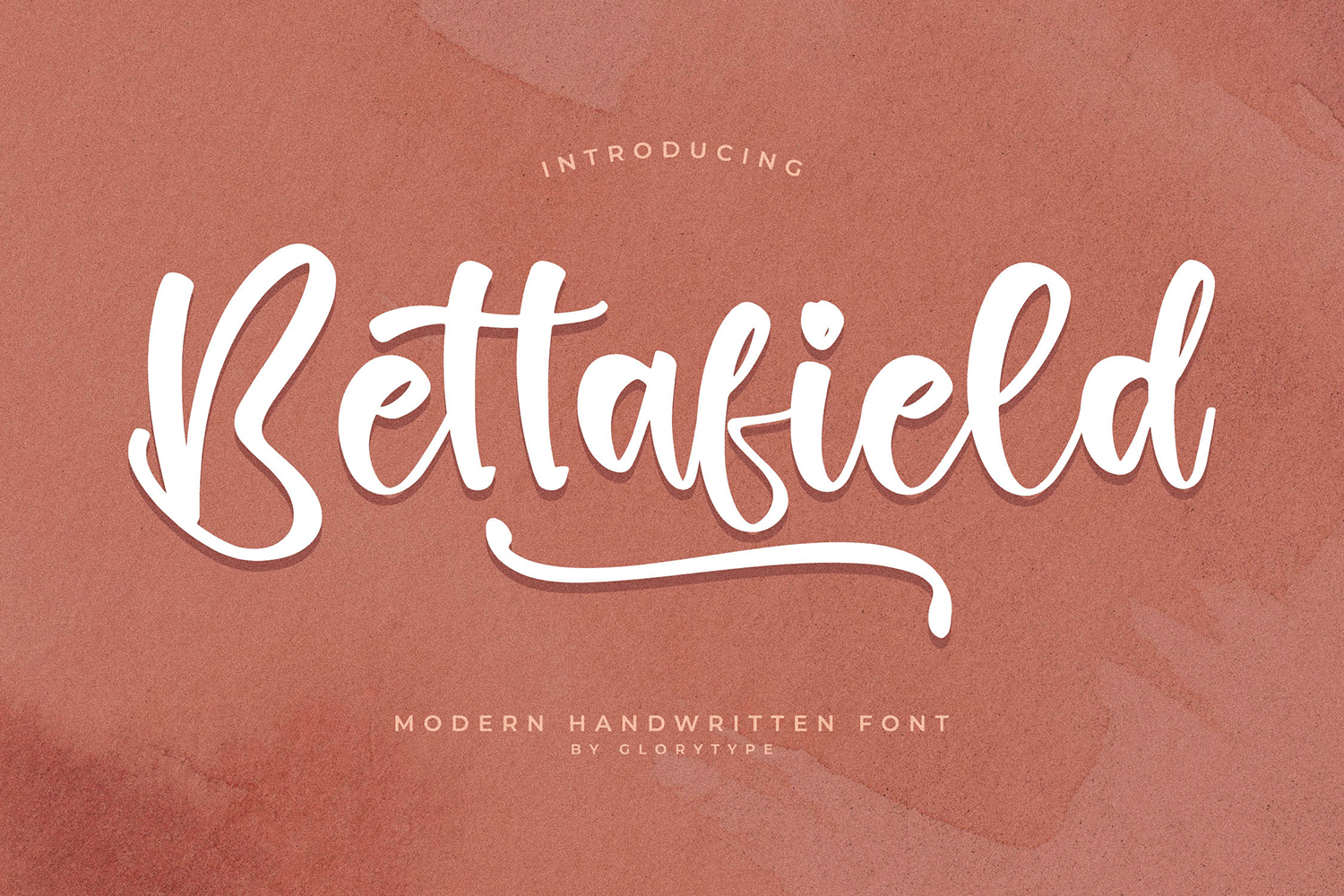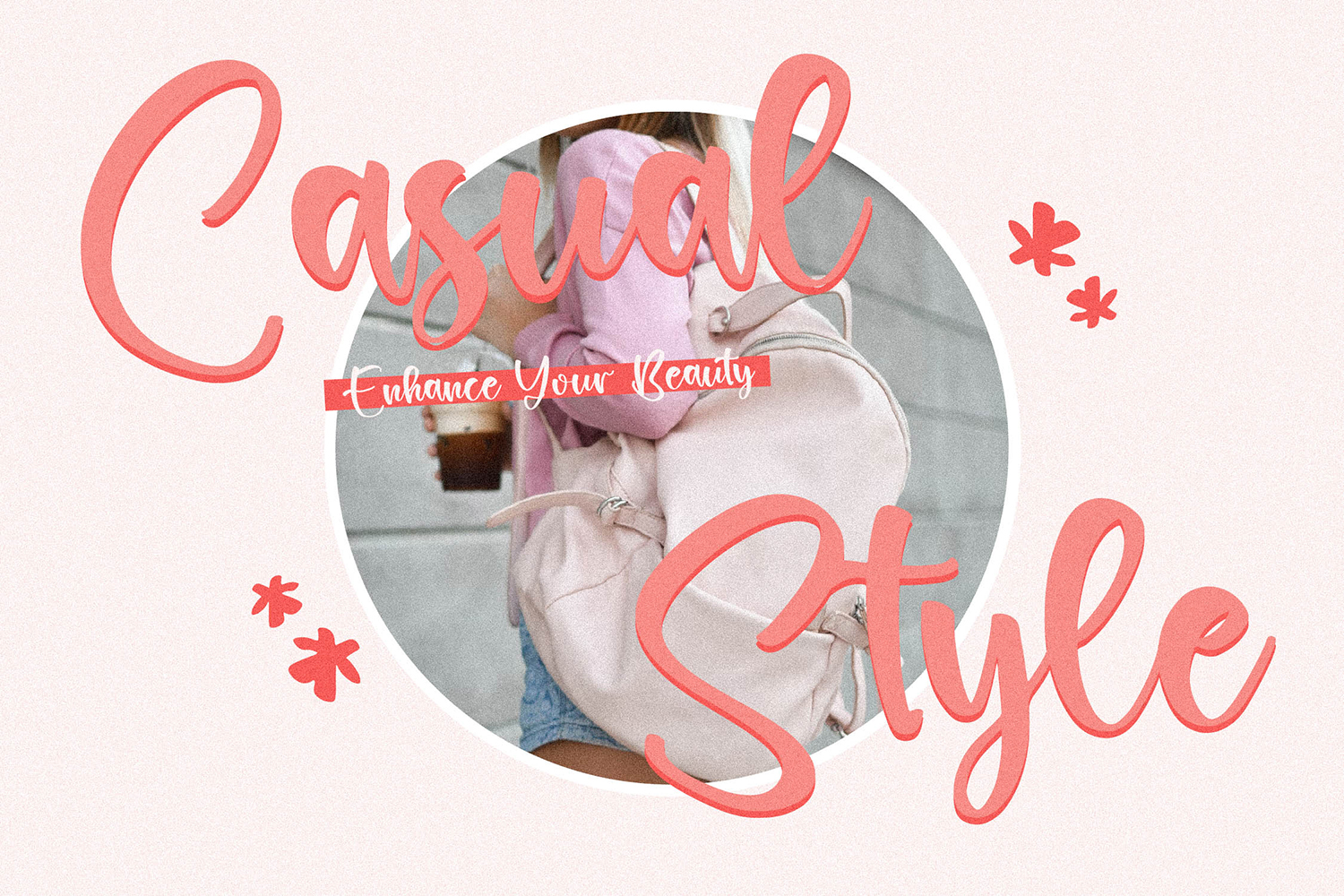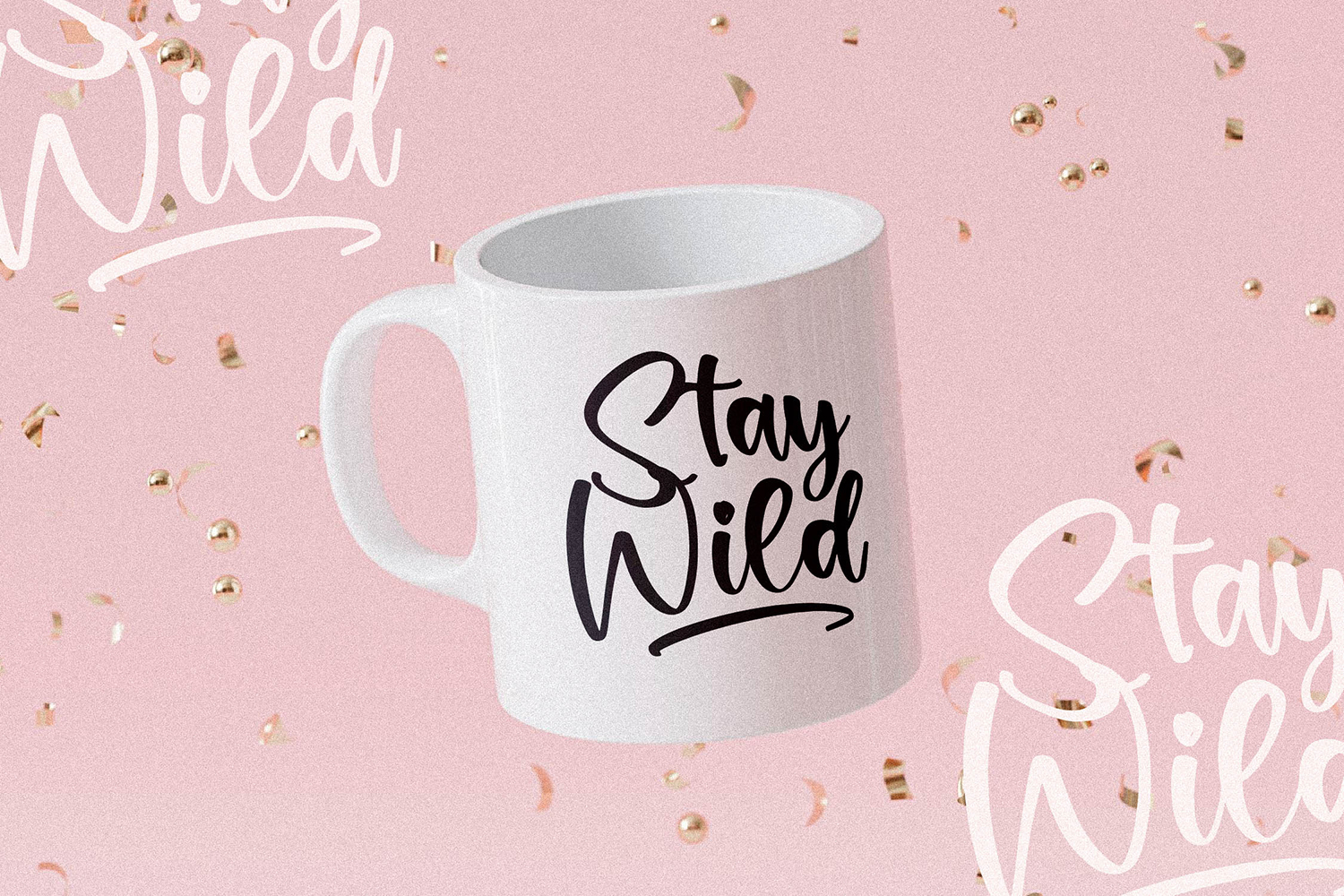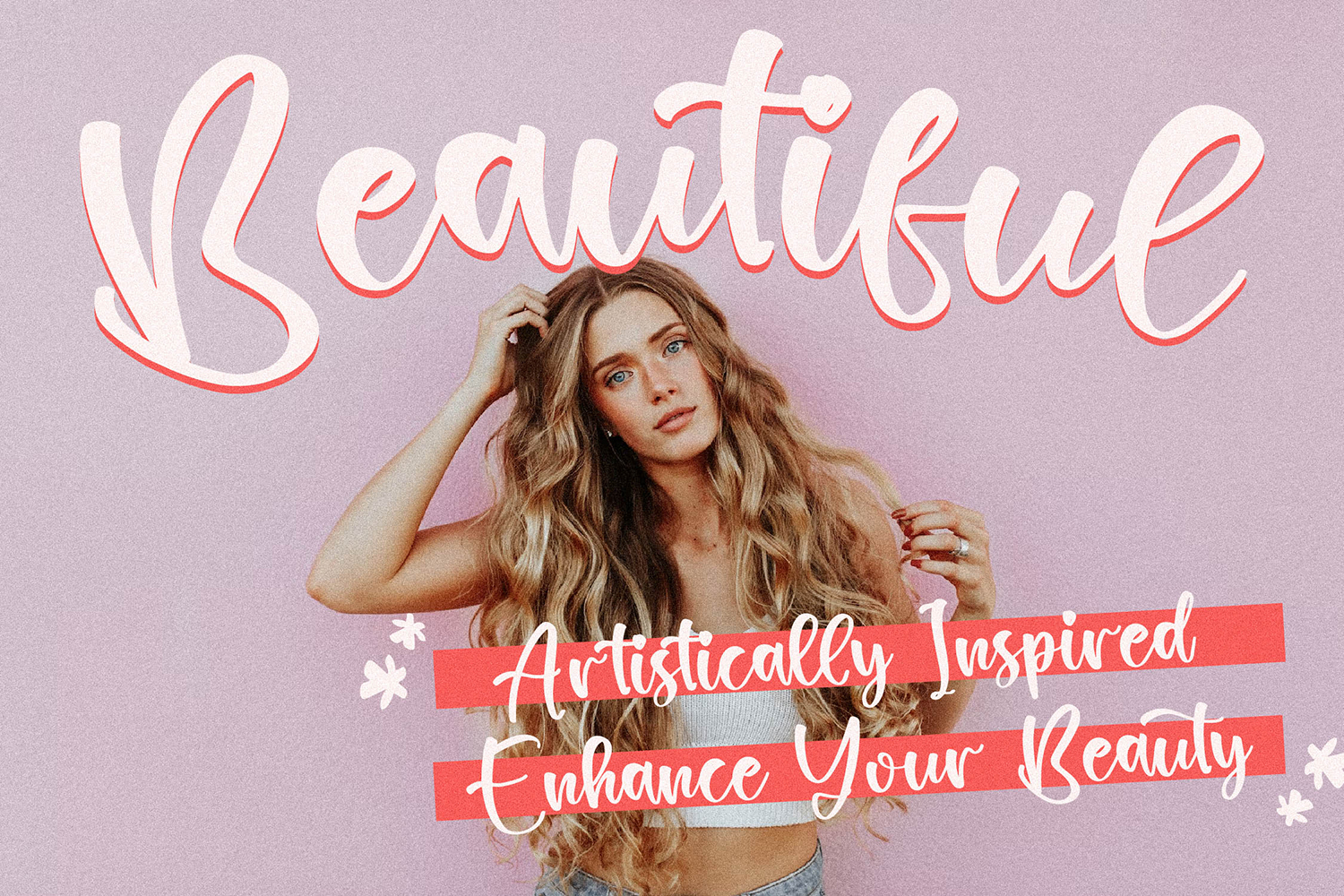
Bettafield Free Font
Introducing Bettafield Free Font – a contemporary handwritten font perfect for a wide array of projects. From logos and branding endeavors to homeware designs, product packaging, mugs, quotes, posters, shopping bags, t-shirts, book covers, name cards, invitation cards, greeting cards, labels, photography, watermarking, special events, and all your other charming creations requiring a touch of beautiful script, Bettafield has got you covered. Embrace the versatility of this font and witness how it elevates your projects with its captivating script taste. Don’t miss the opportunity to make Bettafield an integral part of your design toolkit. This free typeface was designed by a talented Glorytype Studio. If you like it don’t forget to check out the full version.